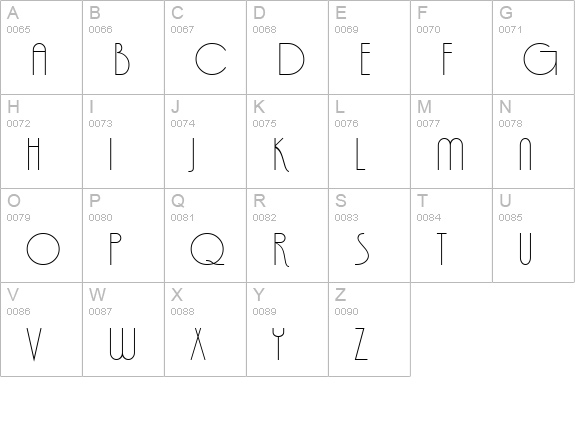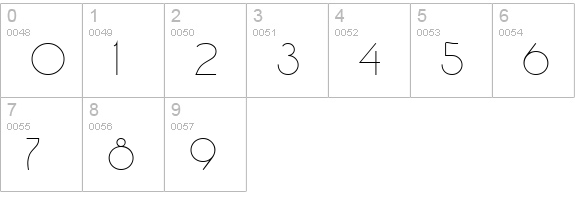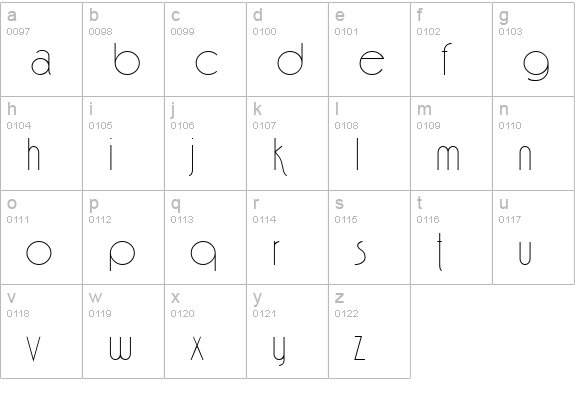
Fina Regular is the standard, neutral variant in the Fina typeface family \xE2\x80\x94 well suited to general body text, paragraphs, and standard typographic work.
Fina Regular font is a versatile and elegant typeface that beautifully balances modern sophistication with classic simplicity. Its clean lines and rounded edges make it perfect for a wide range of design projects, from branding to editorial design. The Fina Regular font exudes a sense of refinement and professionalism, making it an excellent choice for both digital and print applications. What sets Fina Regular font apart is that it is available for free download at FontsMarket.com. This means that designers and creatives can easily access this high-quality font without any cost, making it a valuable addition to any font library. Whether you're working on a personal project or a client's design, Fina Regular font offers a timeless and polished aesthetic that will elevate your work to the next level. Download it today and see for yourself the beauty and versatility of Fina Regular font.